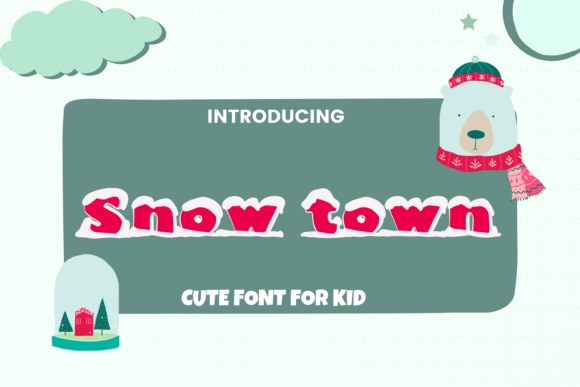
Prepare to enter a winter wonderland with the enchanting Snow Town Font, a delightful display font perfect for spreading holiday cheer!
Immerse yourself in the magic of Christmas with Snow Town, where each letter resembles a delicate snowflake, dancing across your designs. This playful font adds a touch of whimsical charm to all your festive creations, from personalized cards and gift tags to charming party décor.
Let Snow Town's whimsical curves and playful shapes ignite your imagination. Its bold and eye-catching presence makes it an ideal choice for capturing the spirit of the season. Whether you're designing a festive flyer, creating unique gift wrapping, or adding a touch of holiday flair to your social media posts, Snow Town will effortlessly enhance your creations.
Unleash your creativity and let the Snow Town Font transform your designs into enchanting holiday masterpieces. Its versatility extends beyond Christmas, making it perfect for adding a touch of wintery magic to any project. Whether you're designing invitations for a cozy winter gathering or creating whimsical posters for a snow-filled event, Snow Town will bring a festive touch to all your endeavors.
With Snow Town Font, the possibilities are endless. Embrace the magic of the season and let your imagination soar. Let this charming font guide you on a creative journey filled with holiday cheer and festive flair!